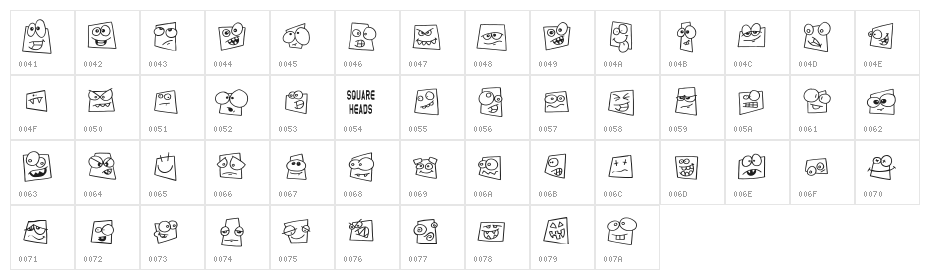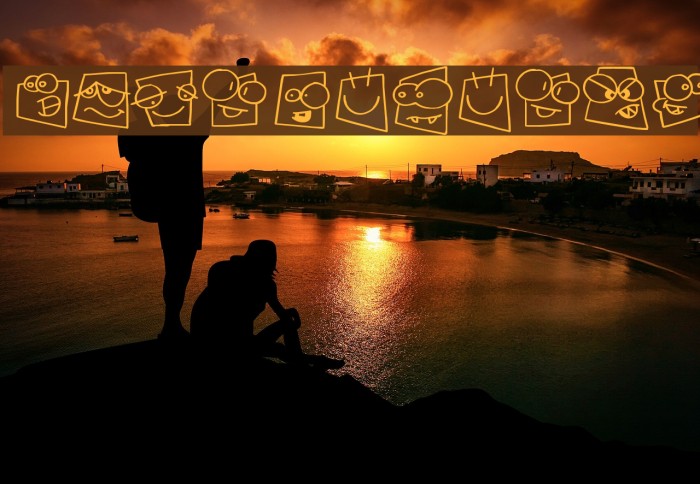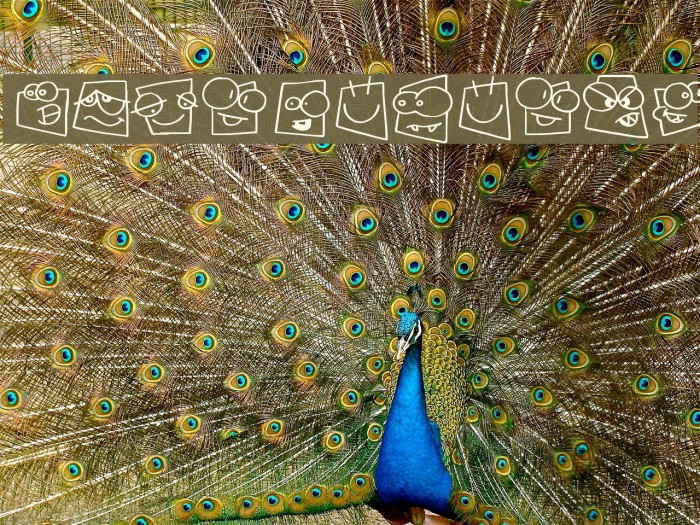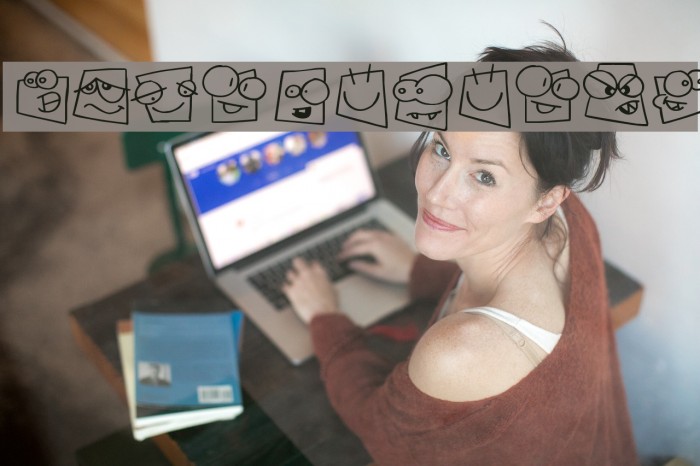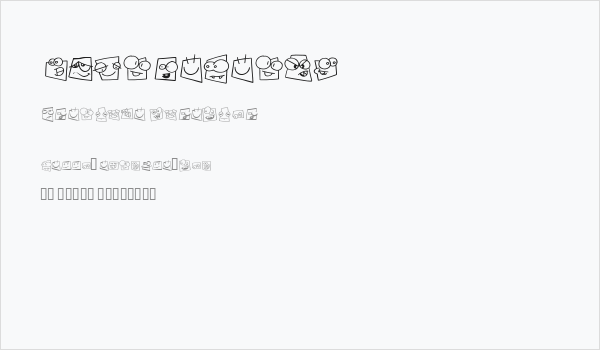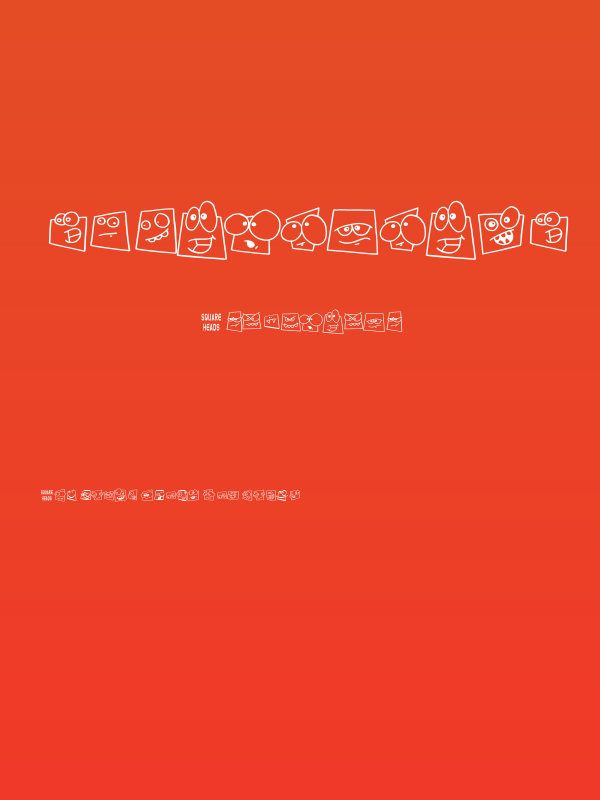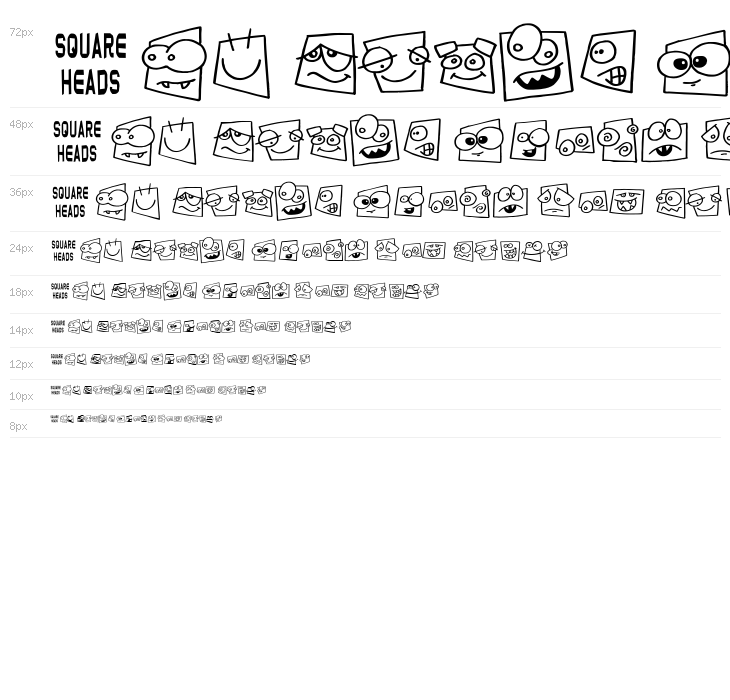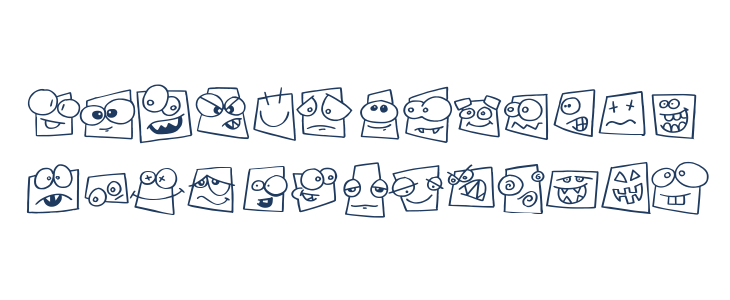
Squareheads Font
Squareheads Description
This is a playful and whimsical font featuring a series of square-shaped characters with unique facial expressions. Each character is distinct, showcasing a variety of emotions and quirky details, making it ideal for creative and fun projects. The font is highly decorative, with each letter represented by a different cartoon-like face, adding a humorous and engaging element to any design. The bold outlines and exaggerated features of the characters make them stand out, ensuring they capture attention. The overall style is very informal and artistic, perfect for projects that require a lighthearted and imaginative touch.
| Proposed Projects | Ideal for children's books, comic strips, playful branding, and creative posters. |